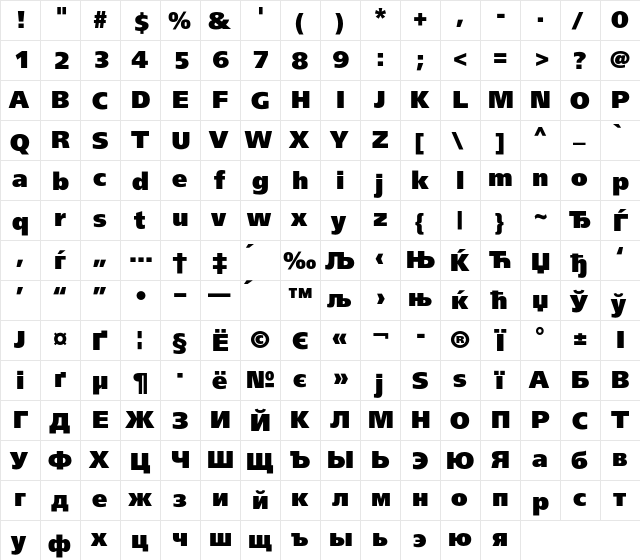
FreeSetBlackC Regular Font Preview
FreeSetBlackC Regular
FreeSetBlackC Regular Font Details
Design Context for FreeSetBlackC Typeface
FreeSetBlackC takes a measured approach to typography — its balanced proportions and neutral character make it a reliable workhorse for both digital and print work.